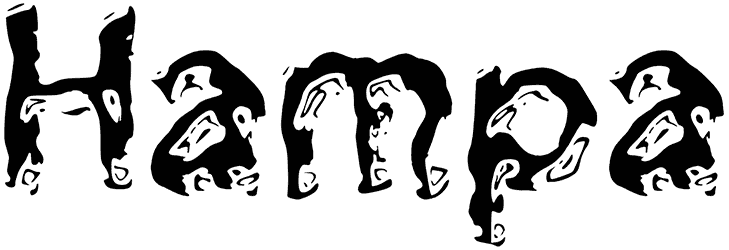
Fuzzy Monster font has the tendency to be like a playful and furry font. The designer’s enthusiasm for combining learning with thrill is clear.
Although the design is not finished. Lowercase letters and some symbols are not ready, you can imagine them? Enjoying the attention, even this monster font will be functional to write stories for children, and other projects associated with children, such as invitation cards, flyers, games, and much more.
Got to love a fury monster!